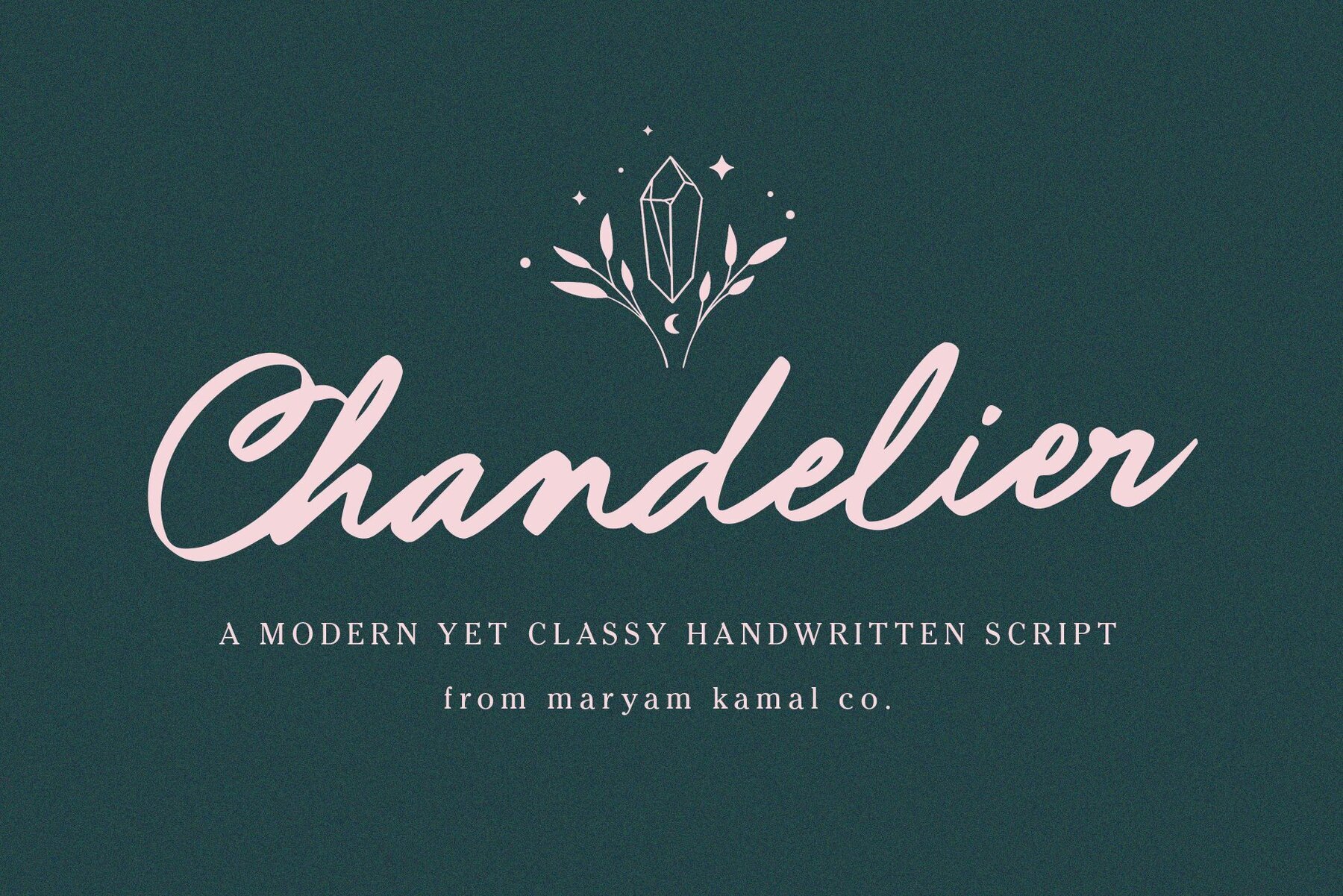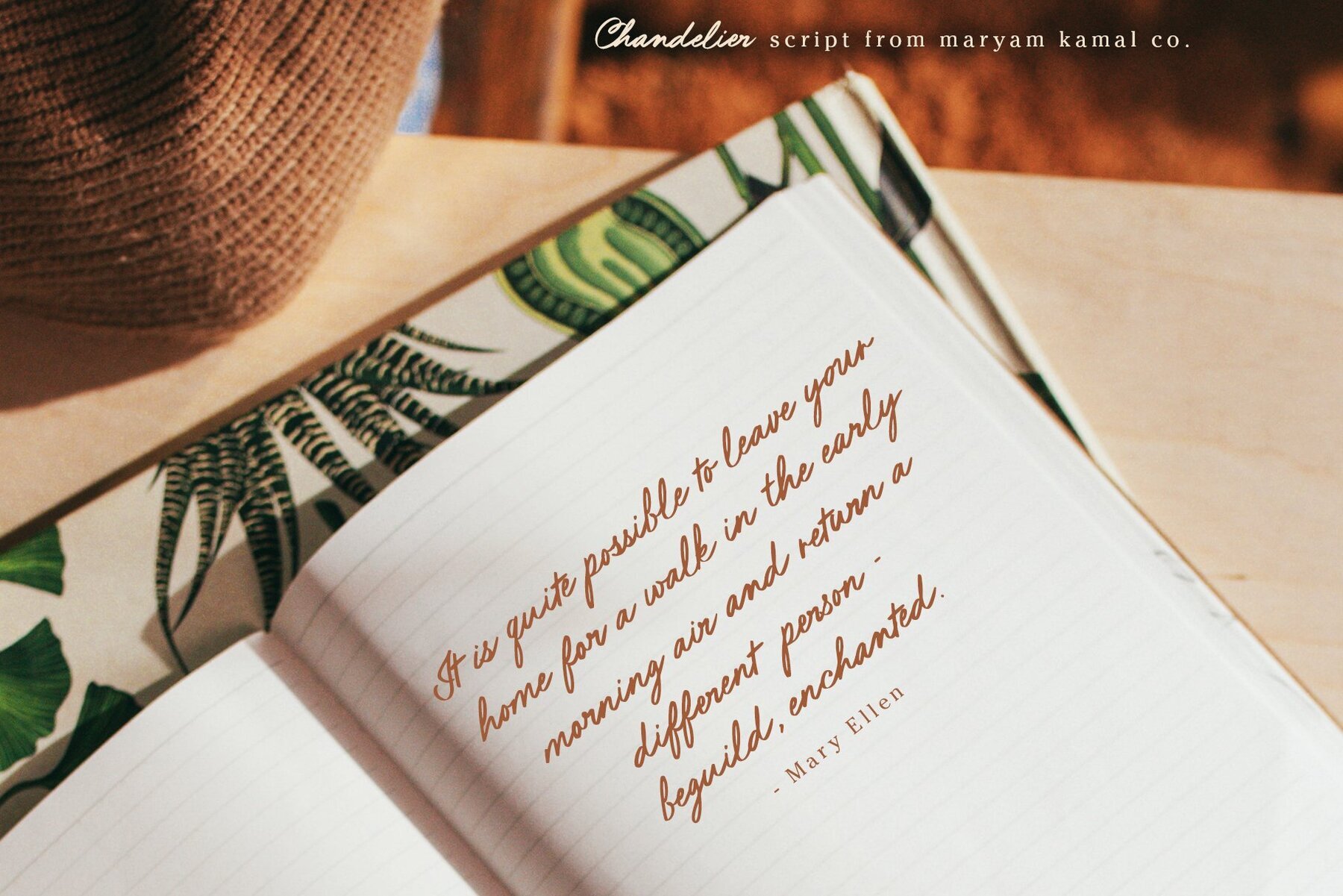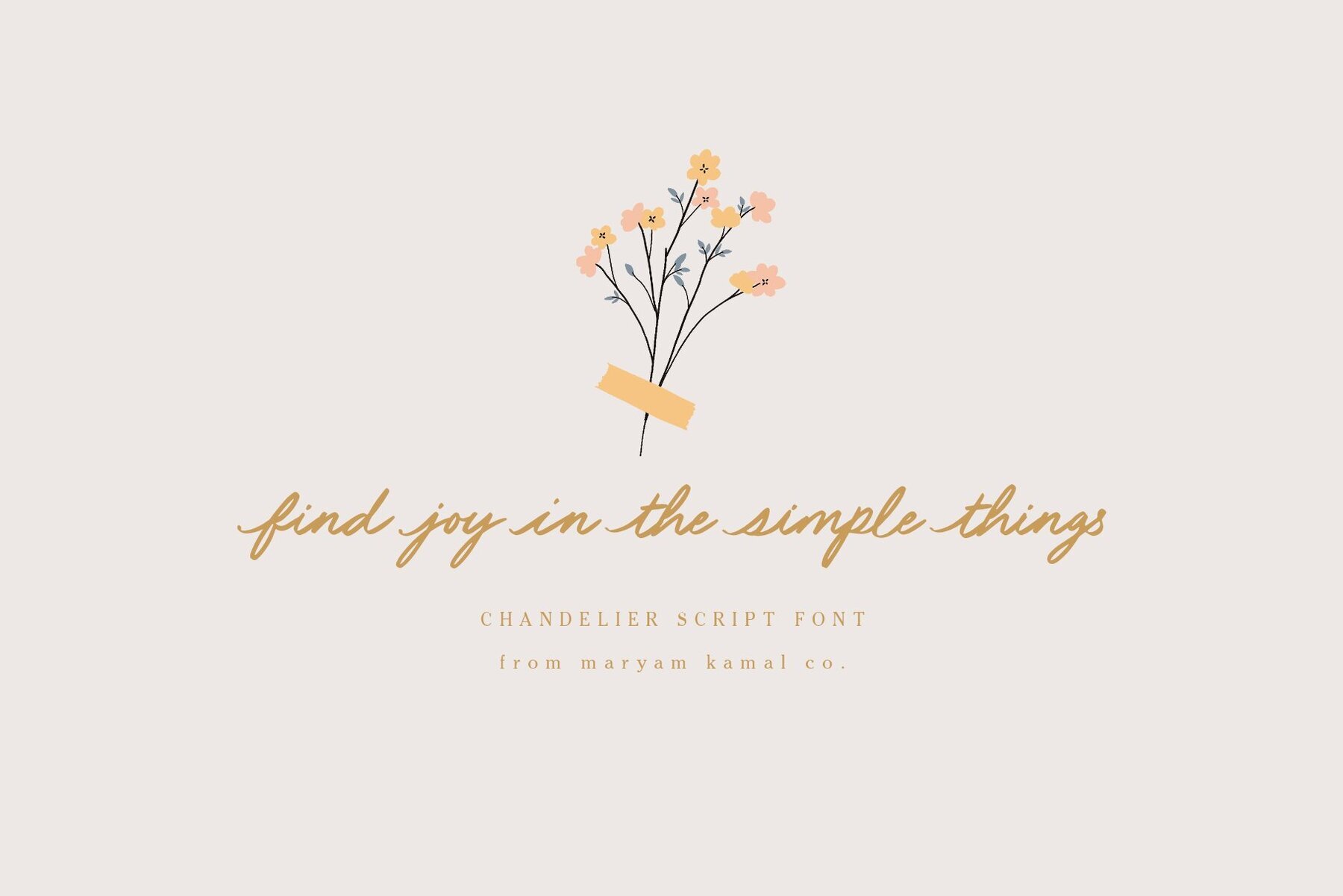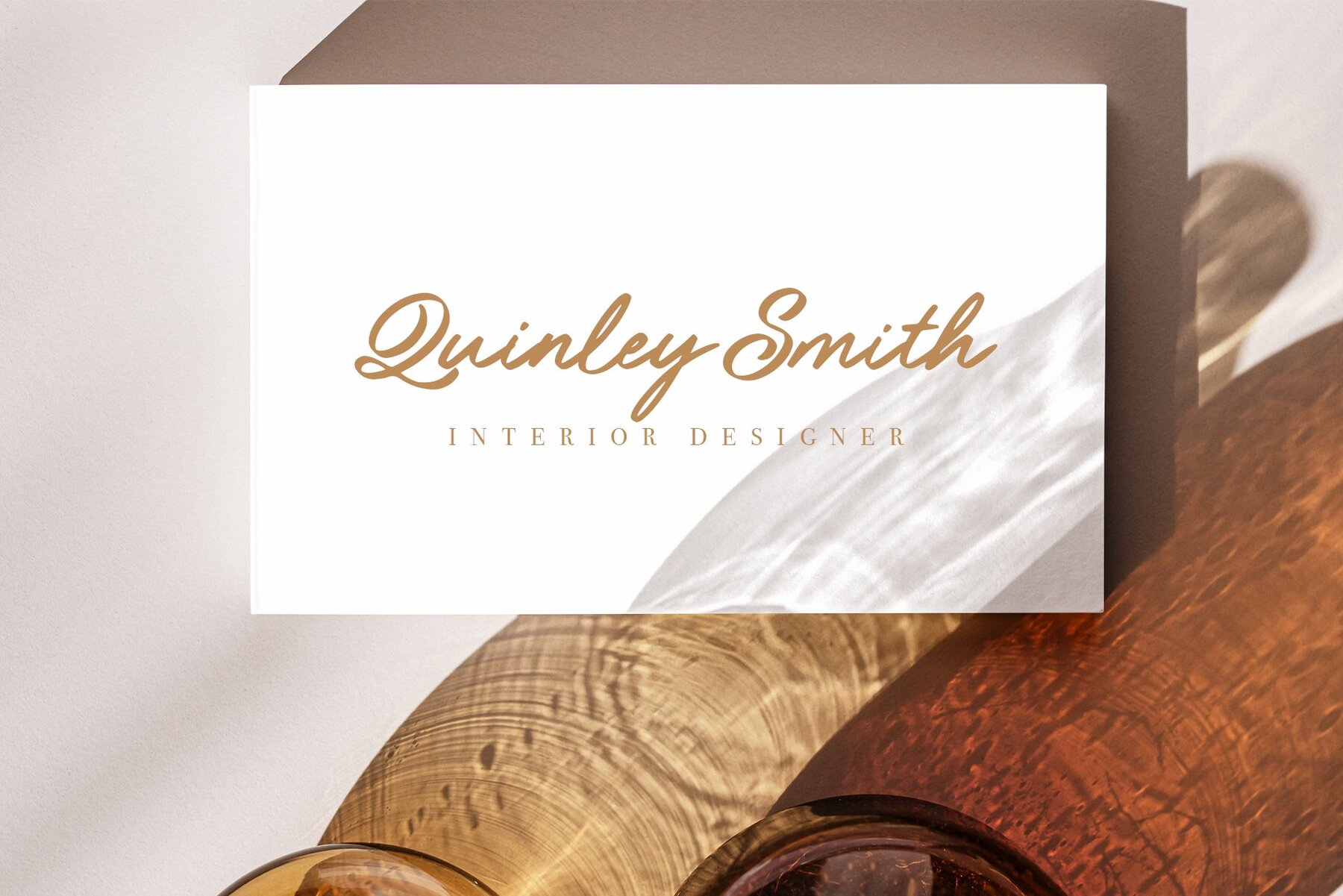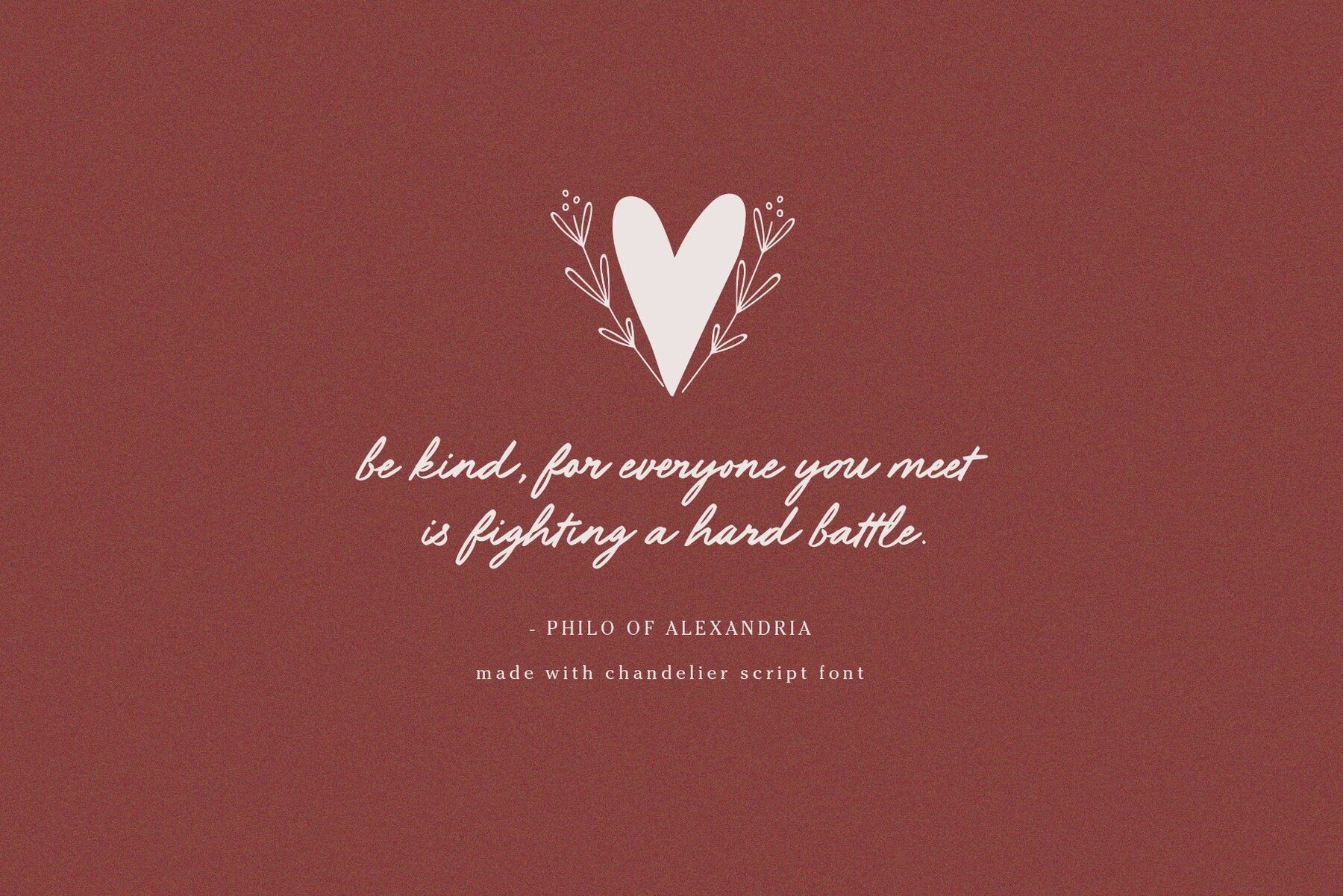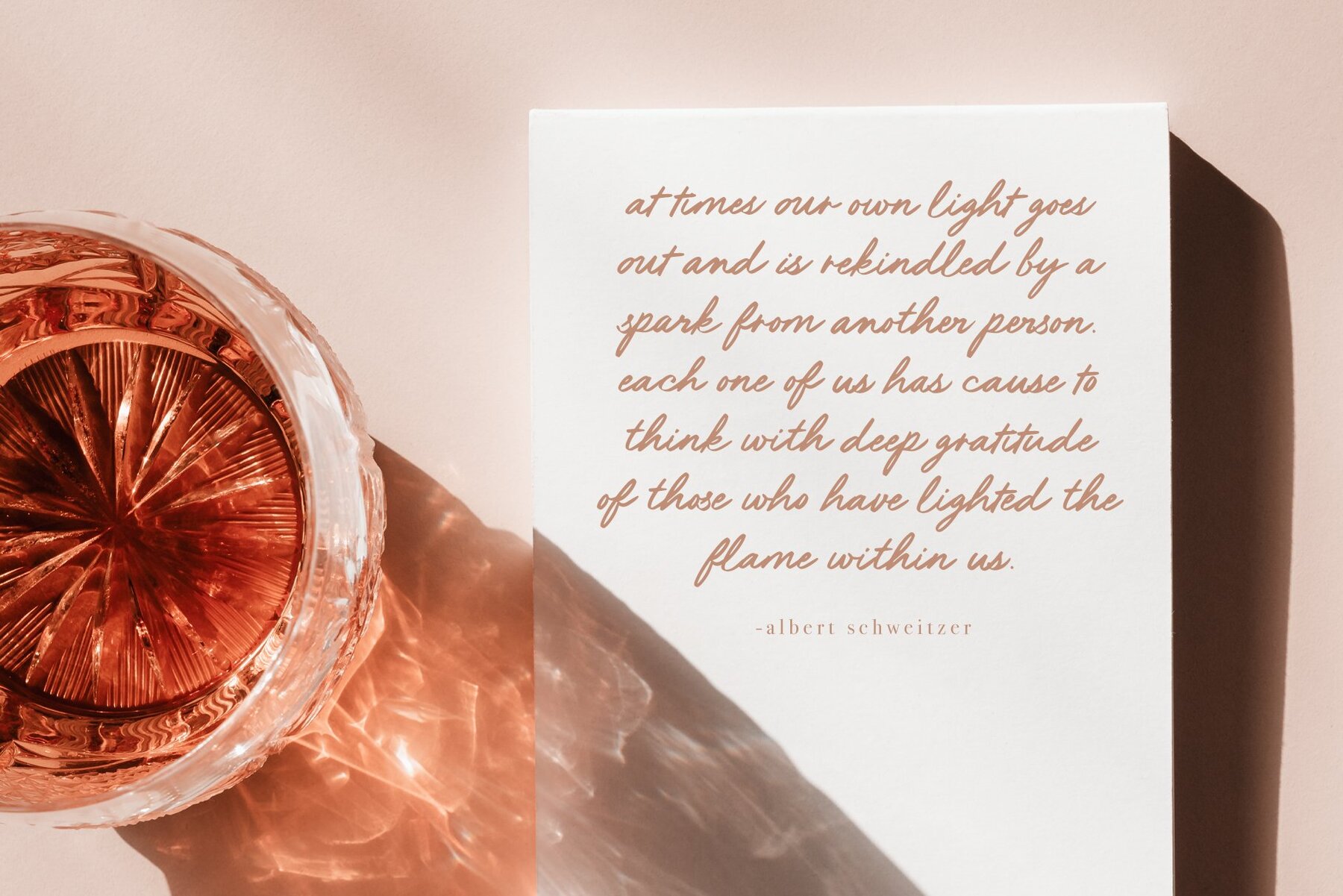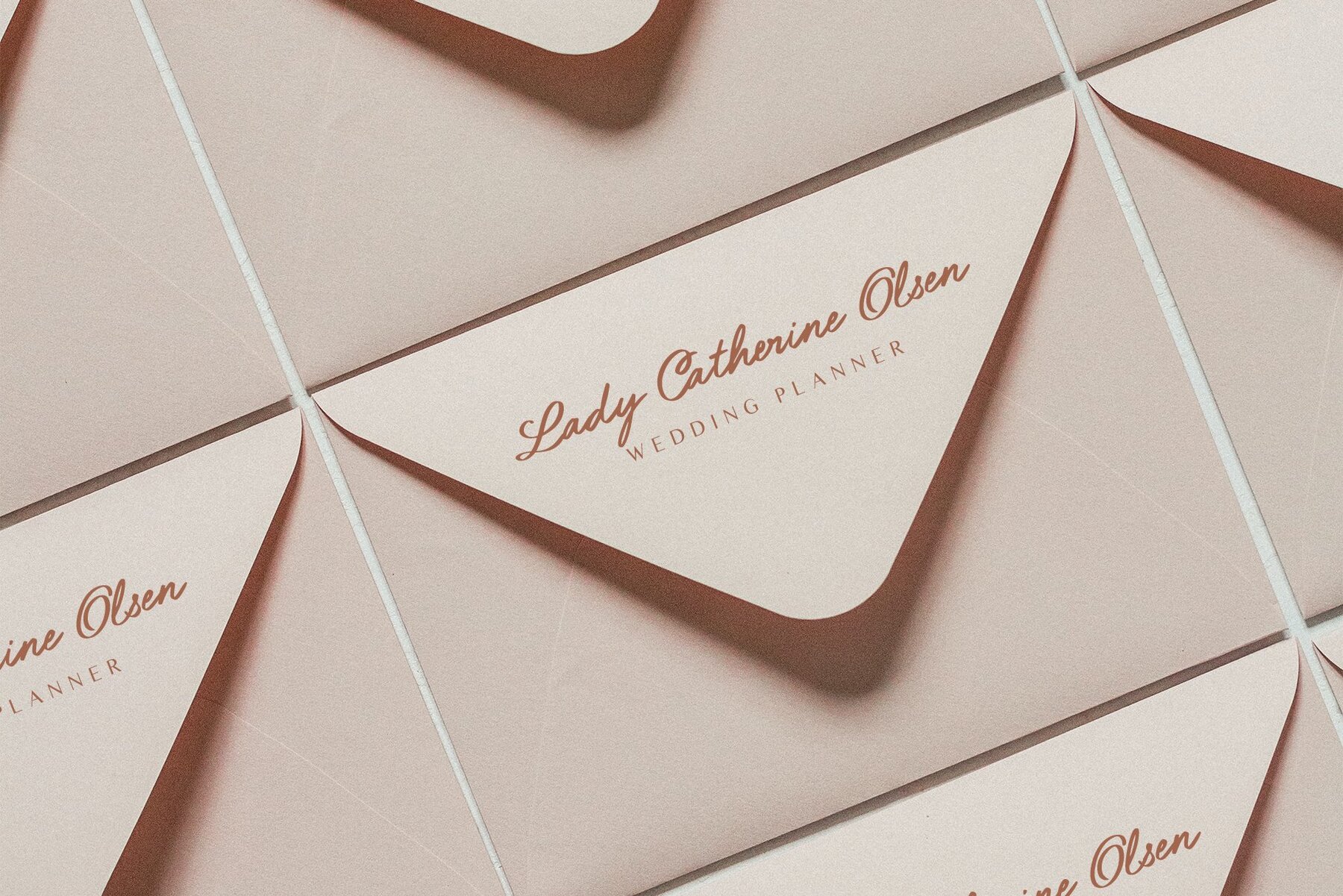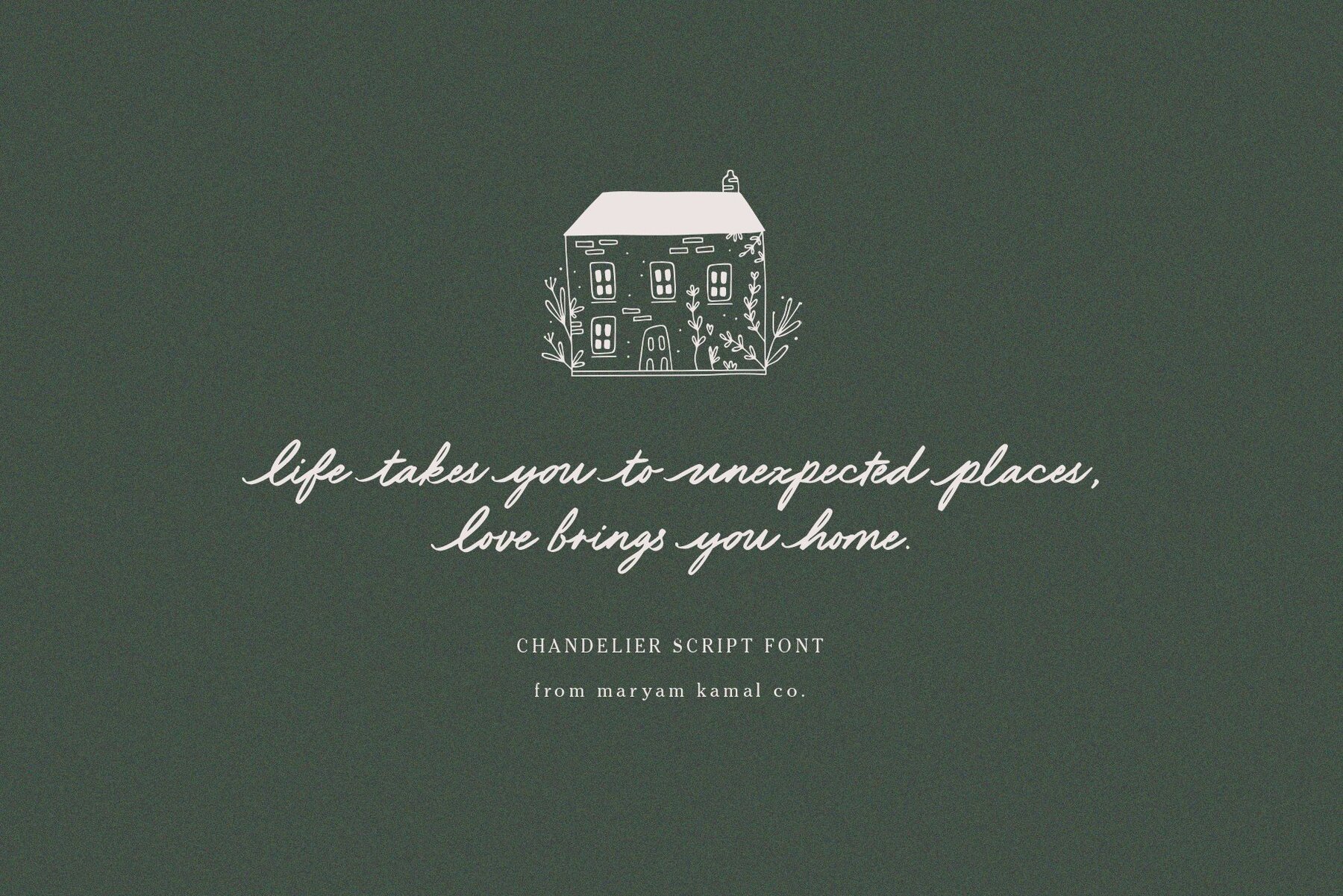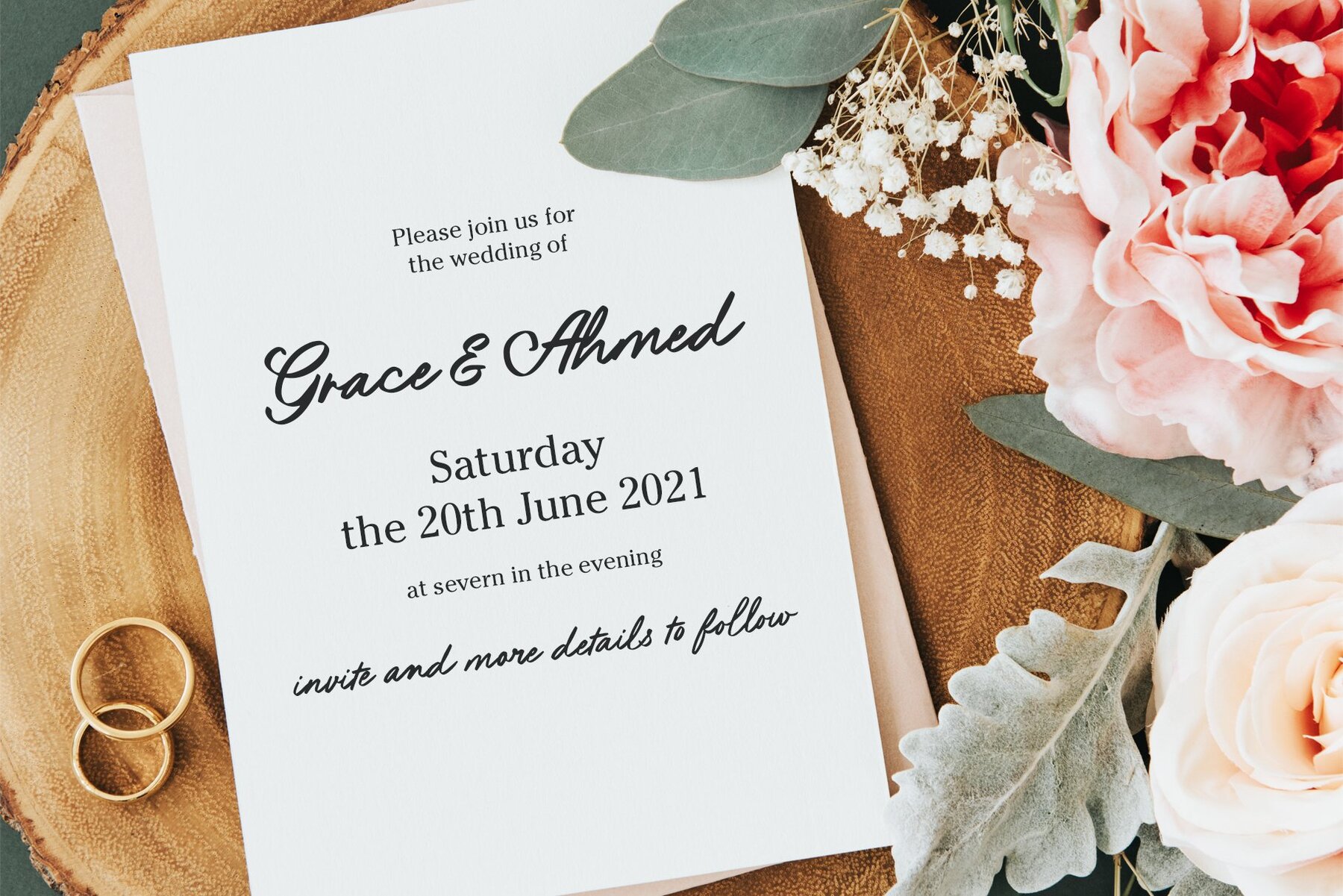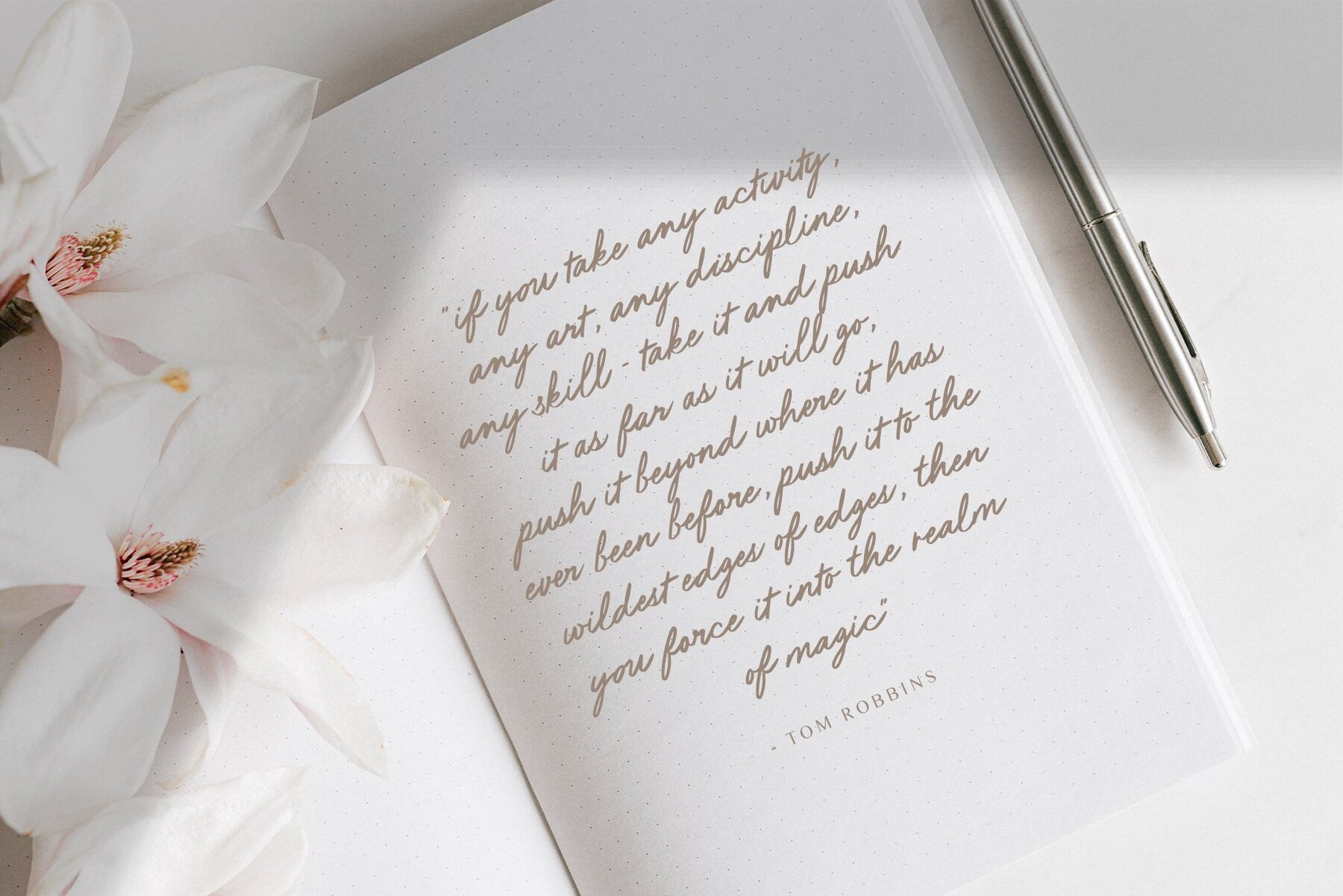
Chandelier Script Font
Chandelier Script
Meet Chandelier, a modern yet classy handwritten marker script font designed to bring romantic and dreamy vibes to your projects. With its elegantly slanted style, this font is perfect for adding a personal touch to your designs. Share your creations with us on Instagram @reveryworks. We love seeing how you use Chandelier in your designs!Chandelier Script: A Modern Handwritten Marker Font